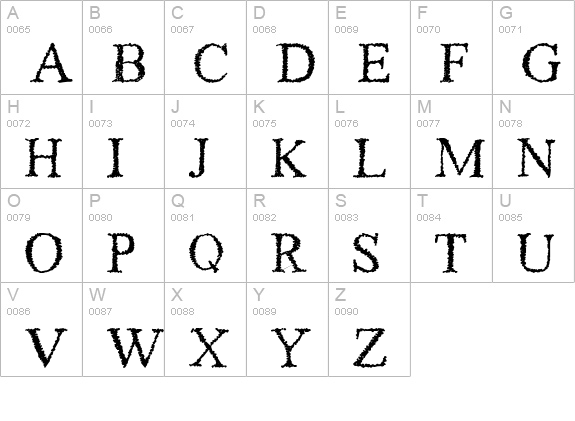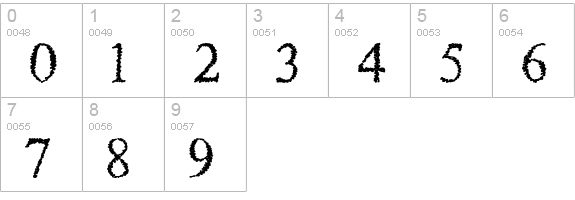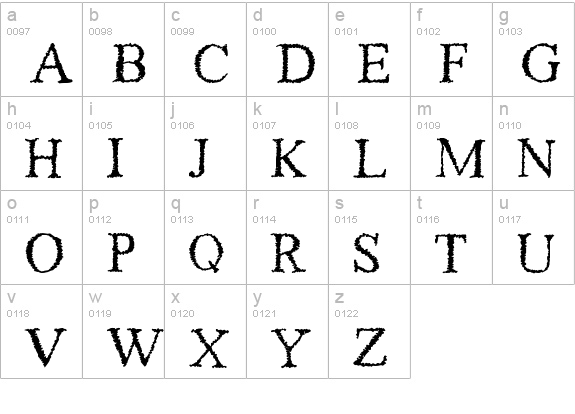
Piracy Font Details
Introducing Piracy font, an exquisite blend of elegance and rebellion. This striking typeface embodies the spirit of adventure and sets sail to push the boundaries of typographic expression. With its bold, swashbuckling letterforms, Piracy font commands attention and demands to be noticed. The unique design of Piracy font draws inspiration from the mysterious world of pirates, capturing the essence of their audacious nature and fearless attitude. Each letter is meticulously crafted to evoke the essence of the high seas, with intricate details and a sense of untamed energy. But what sets Piracy font apart is not just its captivating design, but also its availability. This extraordinary font is freely available to download at FontsMarket.com, ensuring that creativity knows no boundaries. Whether you're a designer, a writer, or simply someone who appreciates exceptional typography, Piracy font welcomes you to explore its limitless possibilities. From striking headlines to captivating logos, Piracy font adds a touch of adventure to any project. Its versatility allows it to seamlessly adapt to a variety of design contexts, making it a valuable asset for both print and digital applications. With Piracy font, you have the power to make a bold statement and leave a lasting impression. So, if you're ready to embark on a typographic voyage like no other, look no further than Piracy font. With its captivating design and its availability as a free download on FontsMarket.com, it's time to unleash your creativity and set sail towards new horizons. Embrace the spirit of piracy and let your designs conquer the world.